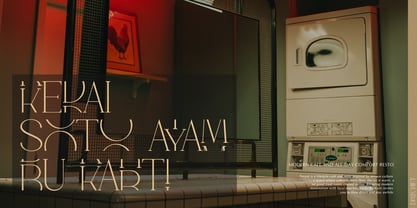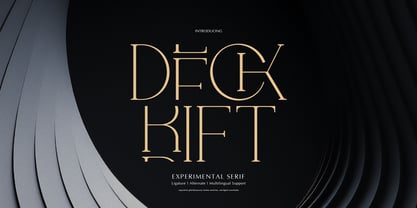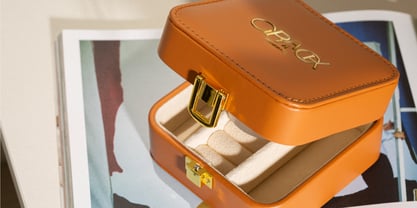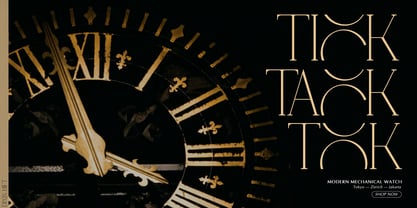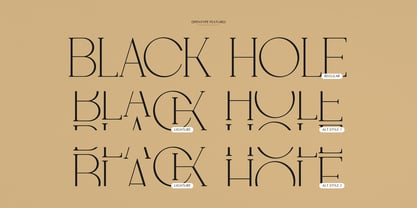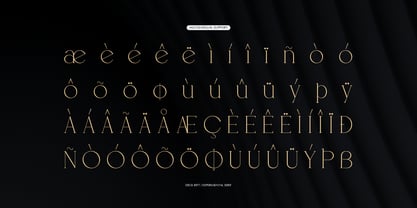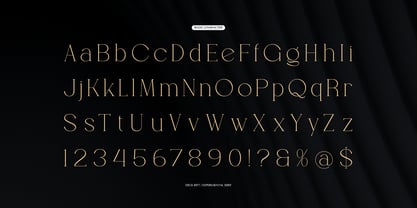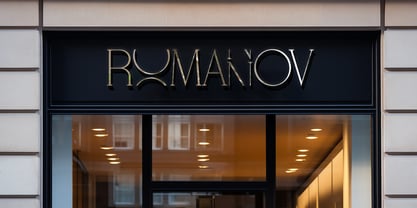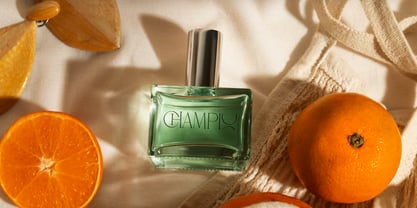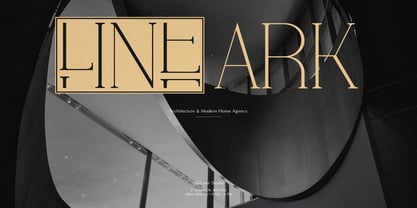
Deck Rift
Deck Rift | Experimental Serif, from Gracetypestudio, suitable for any projects such as: logos, branding projects, homeware designs, product packaging, mugs, quotes, posters, shopping bags, t-shirts, book covers, name card, invitation cards, greeting cards, label, photography, watermark, special events, and all your other lovely projects that need a Experimental Serif taste.
• Regular and Italic
• Alternate and Ligature
• Fonts include multilingual support